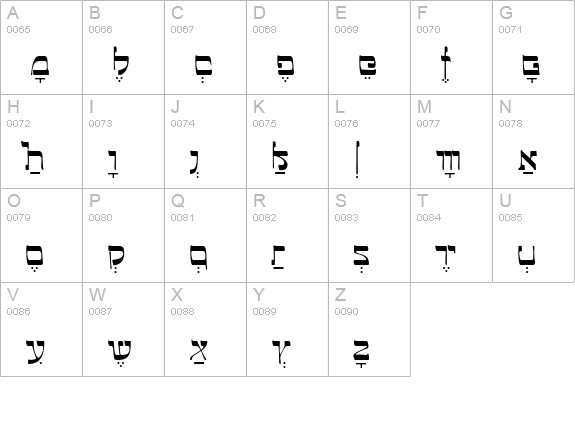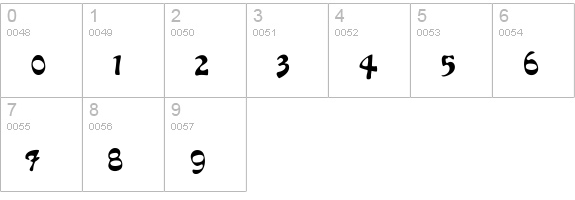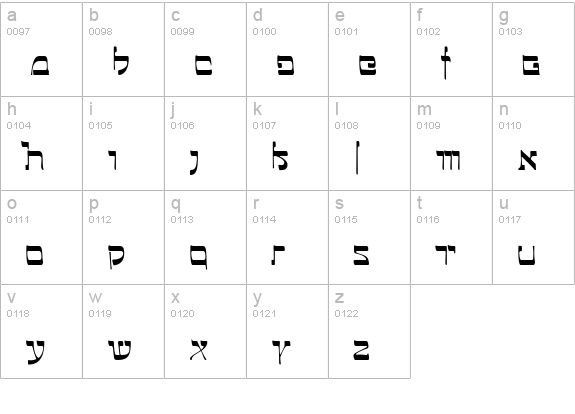
TalmudBook Font Details
Introducing TalmudBook, a visually stunning font that captures the essence of tradition, wisdom, and spirituality. Crafted with utmost care and attention to detail, TalmudBook is designed to bring life to your projects and evoke a sense of timeless elegance. With its meticulously crafted strokes and intricately designed letterforms, TalmudBook stands out as a true masterpiece. Its balanced proportions and graceful curves make it the perfect choice for any design that seeks to convey a sense of sophistication and refinement. But what truly sets TalmudBook apart is its accessibility. We believe that creativity should know no boundaries, which is why we are thrilled to offer this extraordinary font free of charge. Yes, you read that right – TalmudBook is freely available to download at FontsMarket.com. Whether you are a designer, writer, or simply someone who appreciates the beauty of typography, TalmudBook is a font that will captivate your imagination and inspire your creative journey. Its versatility makes it suitable for a wide range of projects, from book covers and invitations to branding and editorial design. So why wait? Dive into the world of TalmudBook and experience the magic of this remarkable font. Download it today at FontsMarket.com and unleash your creativity with a font that is as breathtaking as it is free.